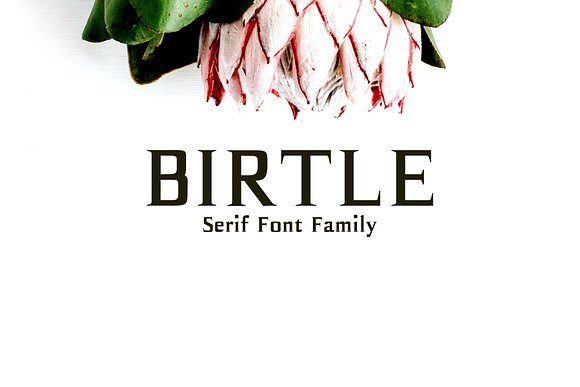
Birtle Serif 3 Font Family Pack
Birtle Serif 3 Font Family Pack is perfect for professional book publishing, elegant magazine layouts, corporate communications, sophisticated branding materials, academic journals, business documentation, editorial design, and distinguished print publications.
Birtle Serif 3 Font Family Pack is exciting because it combines classical serif tradition with contemporary functionality, featuring refined letterforms and balanced proportions that ensure exceptional readability while projecting professional sophistication. Its versatile character creates authoritative visual presence across all serious communication applications.
Birtle Serif 3 Font Family Pack family includes light, regular, and bold weights with matching italic variations, offering designers six expertly crafted font styles for comprehensive typographic solutions and flexible hierarchical systems.
Birtle Serif 3 Font Family Pack Free Download delivers premium serif typography that establishes professional credibility and editorial excellence. This expertly crafted typeface collection demonstrates superior attention to detail through its refined serif construction and carefully optimized character spacing that enhances sustained reading comfort while maintaining elegant sophistication. The font's authoritative presence makes it particularly suitable for publishing houses, professional services, educational institutions, and corporate organizations requiring credible visual communication that commands respect and attention.
Editorial professionals consistently choose Birtle Serif 3 Font Family Pack for its outstanding performance in text-heavy applications requiring extended reader engagement. The font's classical foundation provides familiar reading comfort while contemporary refinements ensure optimal legibility across both digital and high-quality print media. Its versatile weight range accommodates diverse publishing needs from detailed body text to commanding headline applications.
The Birtle Serif 3 Font Family Pack download includes comprehensive character sets with professional symbols, extensive punctuation marks, and international language support for global publishing compatibility. This thorough coverage ensures seamless implementation across multilingual documents, academic papers, and corporate publications. The font's consistent spacing and careful kerning optimization create polished layouts that enhance reader comprehension and professional presentation quality.
Publishing teams appreciate Birtle Serif 3 Font Family Pack's reliability in creating respected institutional materials that establish immediate credibility and professional authority. Its timeless appeal transcends publishing trends while maintaining the gravitas required for serious professional discourse, making it an invaluable asset for organizations seeking to establish lasting excellence through superior typographic communication and professional document standards.